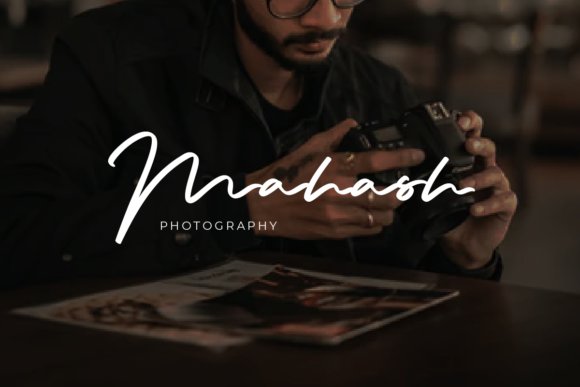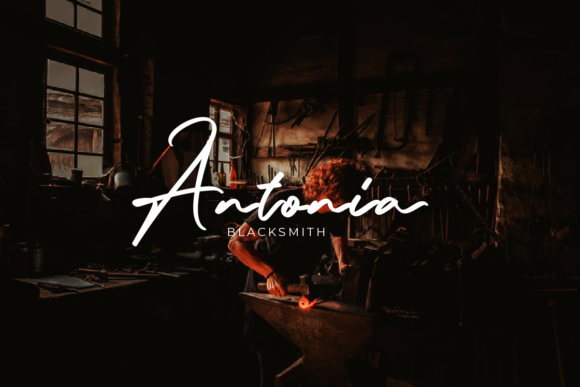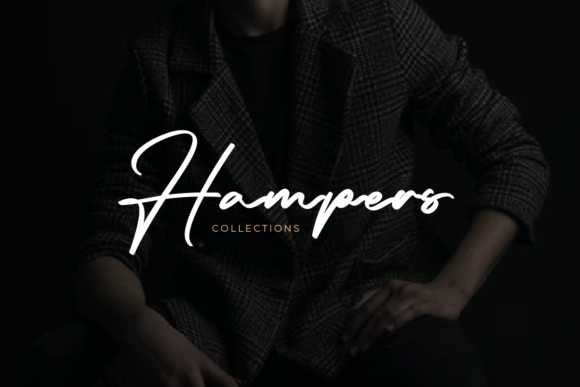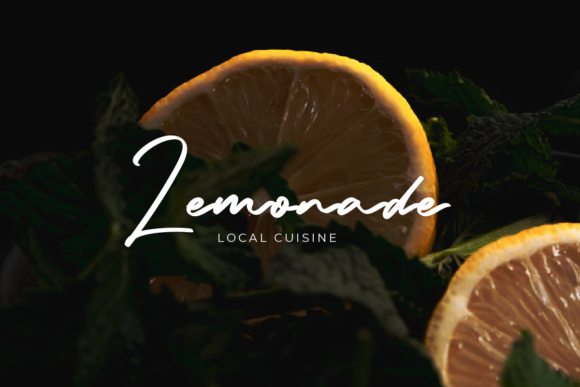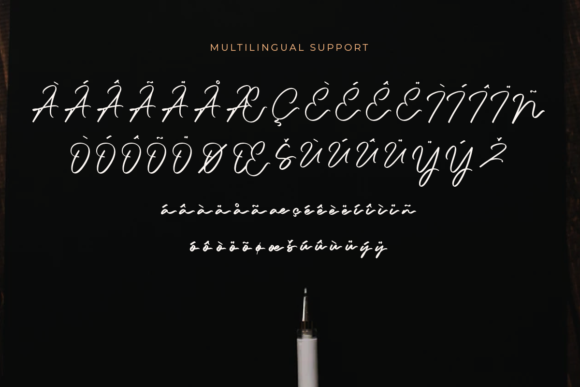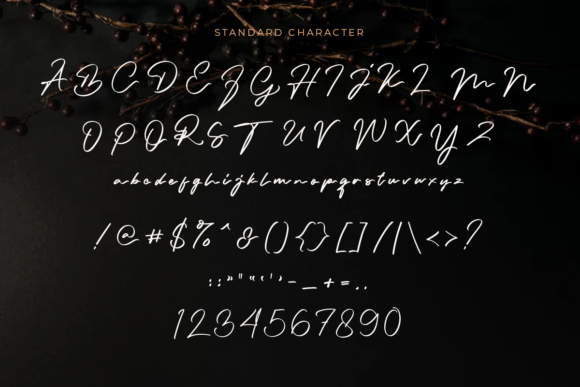
Introduction to Hanney Font
Do you remember the moment when you stumbled upon the perfect font for your creative project? For some, it’s a rush of excitement, while for others, it’s a mix of relief and joy. For designers, finding the right font can be the difference between a mediocre and a breathtaking design. Recently, I discovered the Hanney Font, and I’m still swooning over its dainty and joyful charm.
The Hanney Font is a high-quality, handwritten font that exudes romance and elegance. Its transparent background and delicate strokes make it a design resource like no other. Whether you’re working on a wedding invitation, a card, or any other creative project, this font will add a personal touch that will leave your audience mesmerized. As a designer, having access to a versatile and beautiful font like Hanney Font is invaluable, and I’m excited to share its story with you.
Key Features of Hanney Font
- High-quality, professional font suitable for creative projects, offering a unique and elegant design.
- Features a clean and modern design, ideal for use in logos, branding materials, and digital products.
Honest Review: Hanney Font
As a designer, I’m always on the lookout for high-quality fonts that can elevate my creative projects. The Hanney Font is one of the latest additions to my design resource library, and I’m excited to share my thoughts on it.
What works well: ✨ The Hanney Font has a unique, modern aesthetic that I’ve been looking for in a font. It’s perfect for designs that require a touch of sophistication and elegance. The transparent background option is also a game-changer, allowing me to seamlessly integrate the font into my designs without any distractions.
Overall, I’m impressed with the Hanney Font. It’s a solid design resource that’s perfect for designers looking for a high-quality, modern font. With a bit more development, I think it has the potential to become a top-tier design font.
- Unique, modern aesthetic
Tips for Getting the Most Out of Hanney Font
For a more creative project, use Hanney Font in combination with other design elements, such as images and shapes. You can also experiment with different font sizes and colors to create a unique visual effect. Additionally, consider using Hanney Font for a free download project to showcase your design skills.
Some common use cases for Hanney Font include: creating a logo for a business, designing a brochure or flyer, and creating a presentation for a conference. With its high-quality design and transparent background feature, Hanney Font is an ideal choice for any creative project.
Alternatives to Hanney Font
Great Vibes is a high-quality, elegant script font perfect for creative projects that require a touch of sophistication. It features a transparent background, making it ideal for overlaying on images or videos. Great Vibes is a great design resource for wedding invitations, event branding, or any project that needs a romantic feel.
Compared to Hanney Font, Great Vibes has a more refined and elegant look, making it suitable for high-end projects. It’s a bit more formal than Hanney Font, but still has a playful touch.
Pacifico is a beautiful, modern script font that’s perfect for creative projects that need a relaxed, beachy vibe. It features a transparent background, making it ideal for overlaying on images or videos. Pacifico is a great design resource for travel branding, event invitations, or any project that needs a laid-back feel.